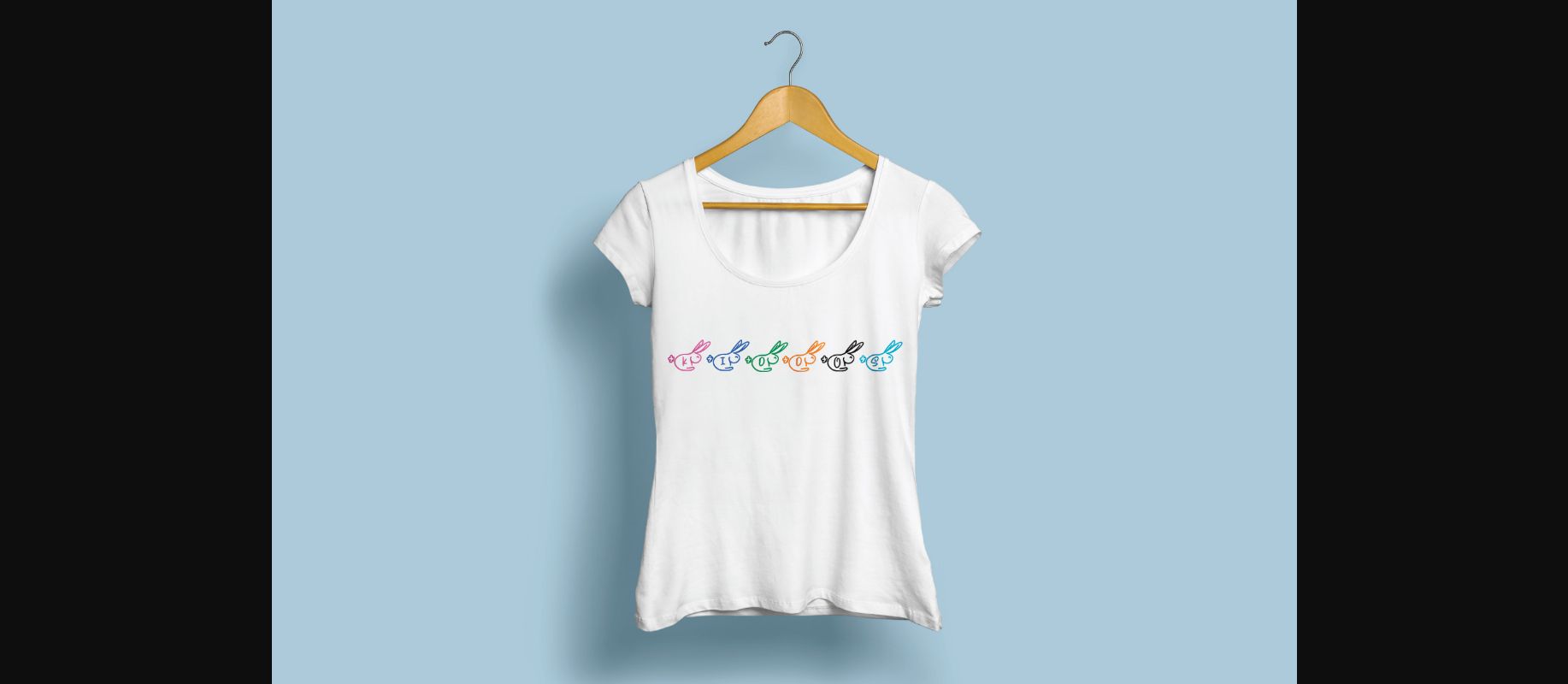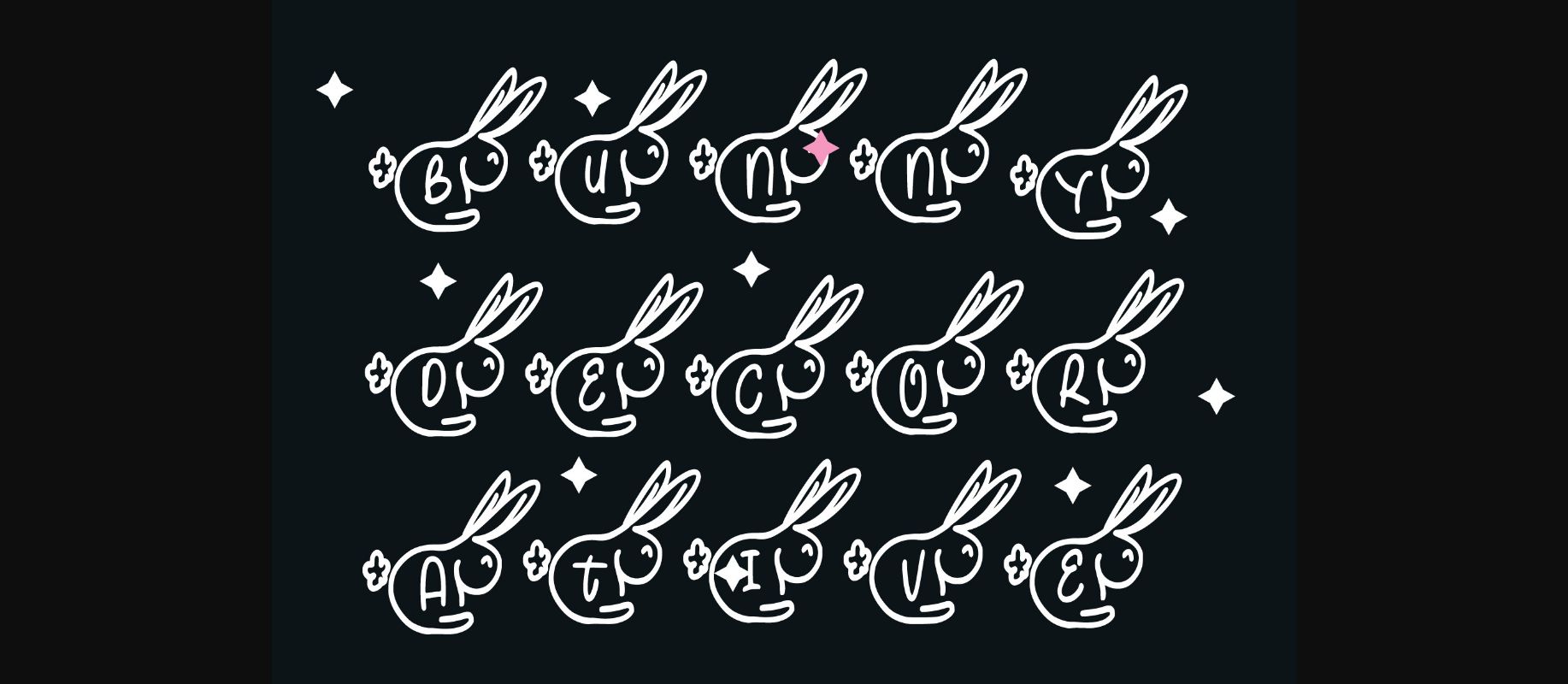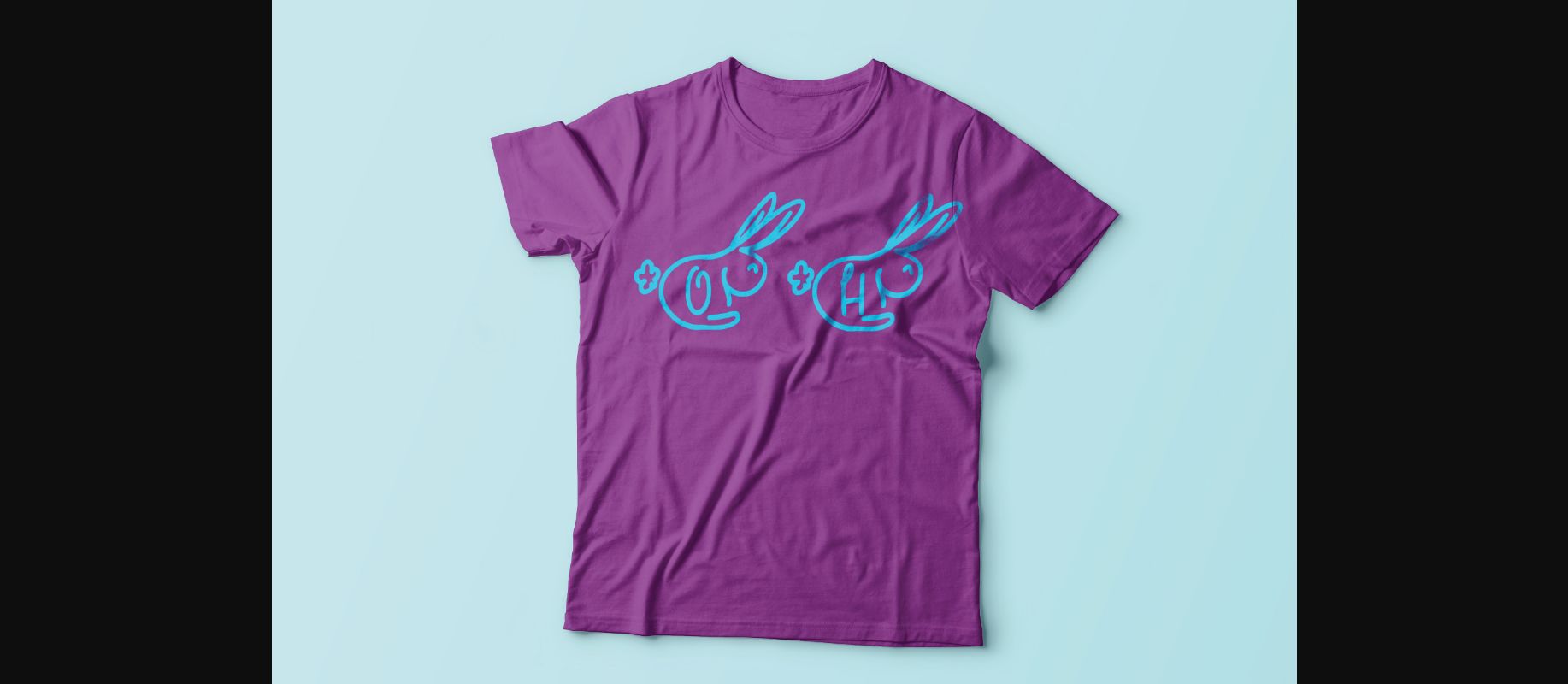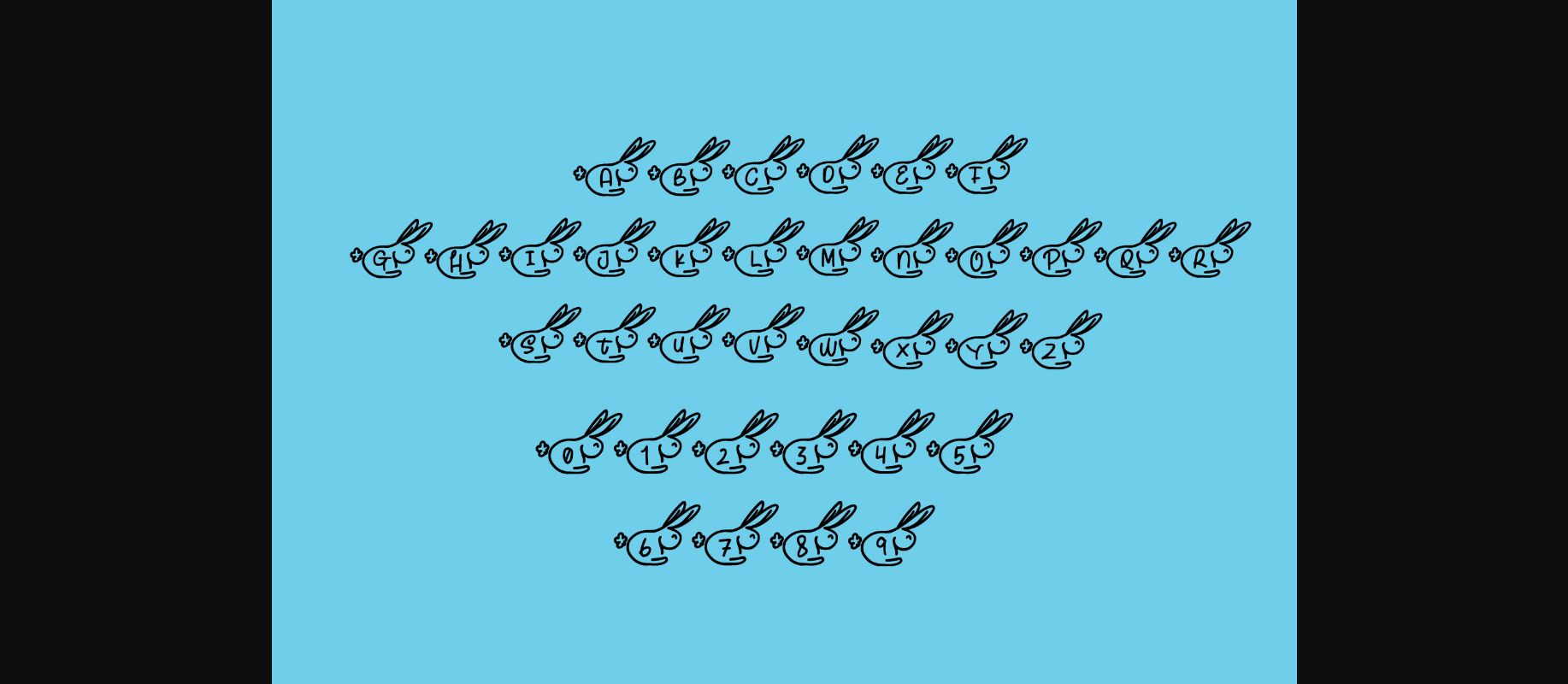
Bunny Font
About Bunny Font
Bunny friendly, fresh and unique decorative font. It is ideal for holiday-themed greeting cards and for any crafting project that requires a cute, childish touch.